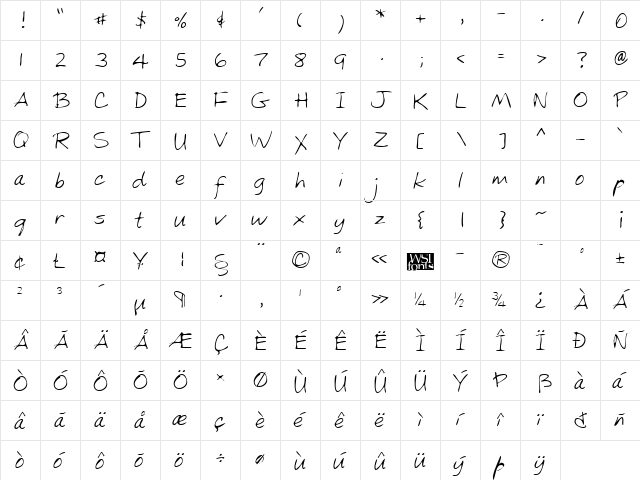
KylesHand Regular
Design Context for KylesHand Typeface
KylesHand brings a calligraphic fluidity to the page — its connecting strokes and expressive curves give it an unmistakably human quality.
Font Pairing: Combine KylesHand with a simple geometric sans for maximum contrast — the tension between flowing curves and clean structure is a classic typographic pairing.
Pro Tip: Pair KylesHand with a clean sans-serif for supporting text. The contrast between fluid script and geometric structure creates an elegant typographic hierarchy.